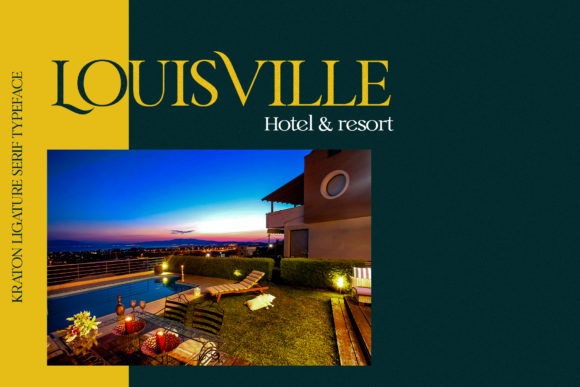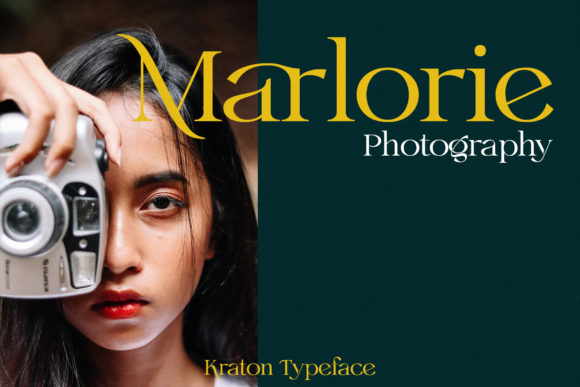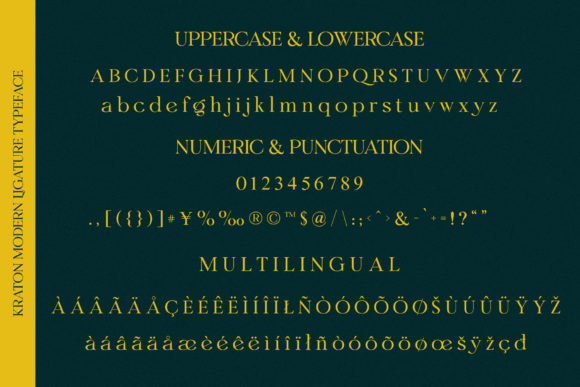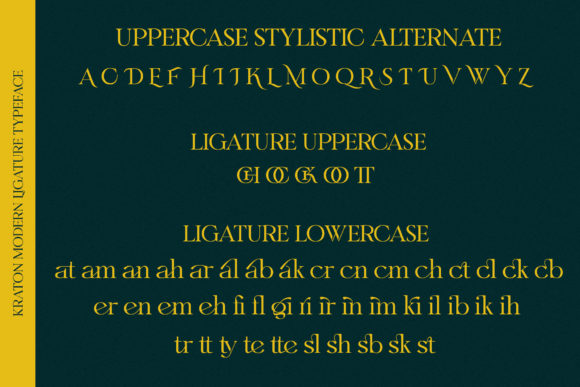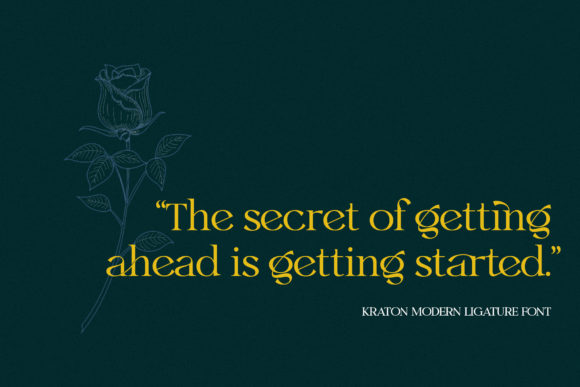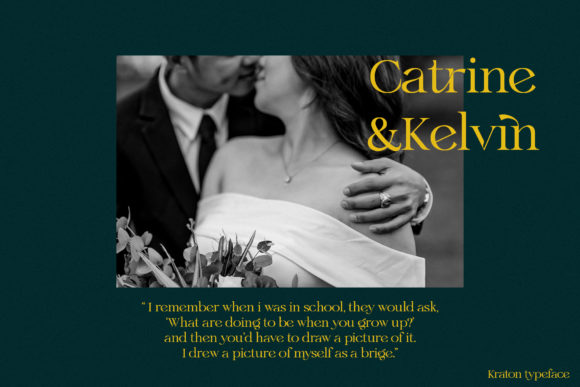
Introduction to Kraton Font
Remember that moment when you stared at a blank canvas, eager to bring your creative vision to life? The blank page can be intimidating, but with the right design resource, it becomes a blank canvas waiting for a masterpiece. For designers, finding the perfect font is often the key to unlocking a project’s true potential.
That’s where Kraton Font comes in – a stylish and unique serif font that will elevate your designs and leave a lasting impression. Whether you’re creating posters, thank you cards, quotes, or logos, Kraton Font adds a touch of sophistication and creativity that sets your work apart from the rest. With its high-quality design and transparent background, this font is a must-have for any designer looking to take their projects to the next level.
Key Features of Kraton Font
- High-quality design: Kraton Font is a premium, high-resolution font perfect for creative projects, offering a unique and stylish look.
- Transparent background: This font features a transparent background, making it ideal for designers who want to create visually appealing designs with a clean and minimalist look.
- High-resolution design: Kraton Font is designed at 300 DPI, making it suitable for printing and digital use, including web design and social media graphics.
- Unique characteristics: The font features a unique and stylish design, with a modern and sleek look that’s perfect for creative projects, from branding and marketing materials to digital art and graphic design.
- Design resource: Kraton Font is a valuable design resource for designers, artists, and creatives working on various projects, including graphic design, digital art, and web design.
Honest Review: Kraton Font
I recently stumbled upon the Kraton Font, a free download that caught my attention for its unique and stylish design. As a designer, I’m always on the lookout for high-quality design resources to enhance my creative projects. The Kraton Font definitely delivers in terms of style and versatility.
Here are some of the things that work well with the Kraton Font:
- ✨ Unique and stylish design that can add a touch of elegance to any project
- ✨ Highly customizable, making it suitable for a wide range of creative projects
- ✨ Transparent background, allowing for easy layering and blending with other design elements
- ⚠️ Limited font styles and weights available, which may limit its versatility for some projects
- ⚠️ Not ideal for use in small text sizes, as it can become difficult to read
Overall, I’m impressed with the Kraton Font, and it’s definitely a great addition to any designer’s toolkit. While it may have some limitations, its unique design and high-quality aesthetic make it a valuable resource for any creative project. Whether you’re working on a personal or professional project, the Kraton Font is definitely worth checking out.
The Kraton Font is perfect for a variety of creative projects, including graphic design, digital art, and print design. It’s also great for use in logos, branding, and marketing materials.